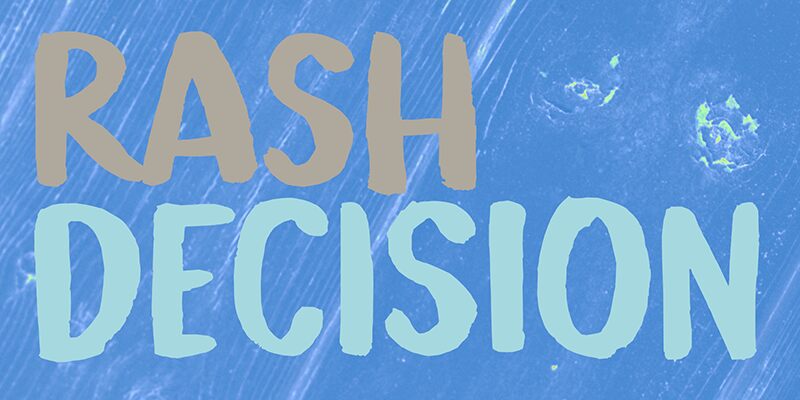
Rash Decision DEMO Regular
Rash Decision font by David Kerkhoff is a rebellious and expressive brush typeface with bold letters. Raw, edgy, and gritty at the same time, the overall feel of the font is impeccable with modern grunge. Laid back and sketchy, Rash Decision does break the rules sometimes while still maintaining its concept of organizing chaos when it needs to.